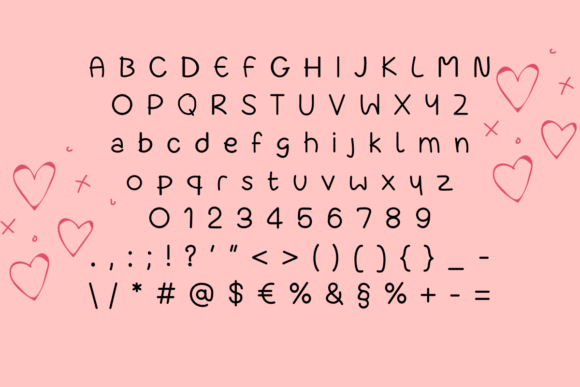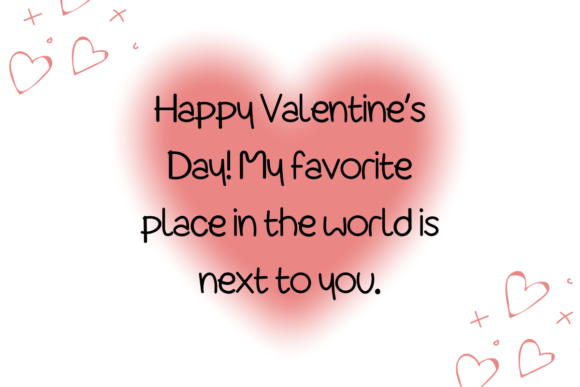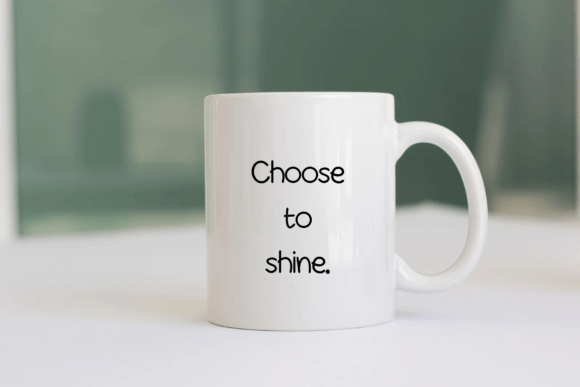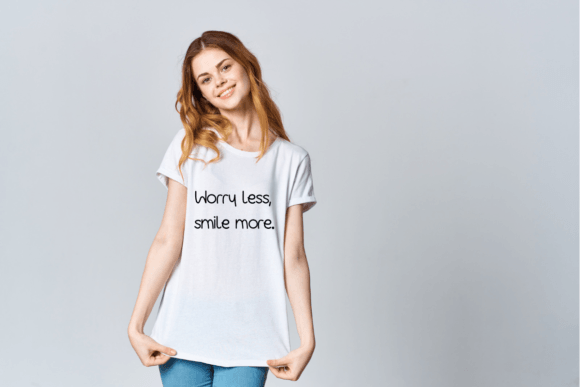
The Perfect Valentine: Finding and Falling in Love with the Cards Valentine Font
I’ll never forget the time I was working on a Valentine’s Day project for a client, and I just couldn’t seem to find the right font. I scrolled through page after page of Google results, but nothing seemed quite right. That was until I stumbled upon the Cards Valentine font. It was love at first sight! 💕
As a designer, I can be pretty picky when it comes to fonts, but this one had everything I was looking for. It’s a beautiful, handwritten font that’s perfect for creating greeting cards, taking notes, or writing in a diary. But what really sets it apart is its versatility – I can use it for banners, social media posts, mugs, shirts, and so much more!
- ✨ Beautiful, handwritten aesthetic that’s perfect for creating personal and heartfelt designs
- ✅ Highly versatile – can be used for a wide range of projects, from greeting cards to social media posts
- 💫 Supports OpenType features, glyphs, and stylistic alternates, giving you plenty of creative options
- 🤔 Some users may find that the font can be a bit tricky to read at smaller sizes – but for most projects, this won’t be an issue
Exploring OpenType Features, Glyphs, and Stylistic Alternates
One of the things that sets Cards Valentine apart is its support for OpenType features, glyphs, and stylistic alternates. These features allow you to customize your text and make it truly unique. Here are a few examples:
- Stylistic Alternates: These allow you to swap out certain characters for alternate versions, giving your text a more personalized feel.
- Glyphs: These are special characters that can add an extra layer of interest to your text. With Cards Valentine, you can access a range of glyphs to help you create unique designs.
- OpenType Features: These are advanced typographic features that allow you to create complex, layered text effects. With Cards Valentine, you can use OpenType features to add an extra layer of depth to your designs.
The Designer Inspiration Behind Cards Valentine
Cards Valentine was designed with love and care by a talented typographer who wanted to create a font that would help people express themselves in a more personal way. The font’s beautiful, handwritten aesthetic is inspired by classic Valentine’s Day cards and the joy of sending love letters.
| Font Name | Cards Valentine Font |
| Author | Nun Sukhwan |
Q: What is Cards Valentine font?
A: Cards Valentine is a beautiful, handwritten font that’s perfect for creating greeting cards, taking notes, or writing in a diary.
Q: Is Cards Valentine easy to read?
A: Cards Valentine is generally easy to read, but as with any font, it may be a bit tricky to read at smaller sizes.